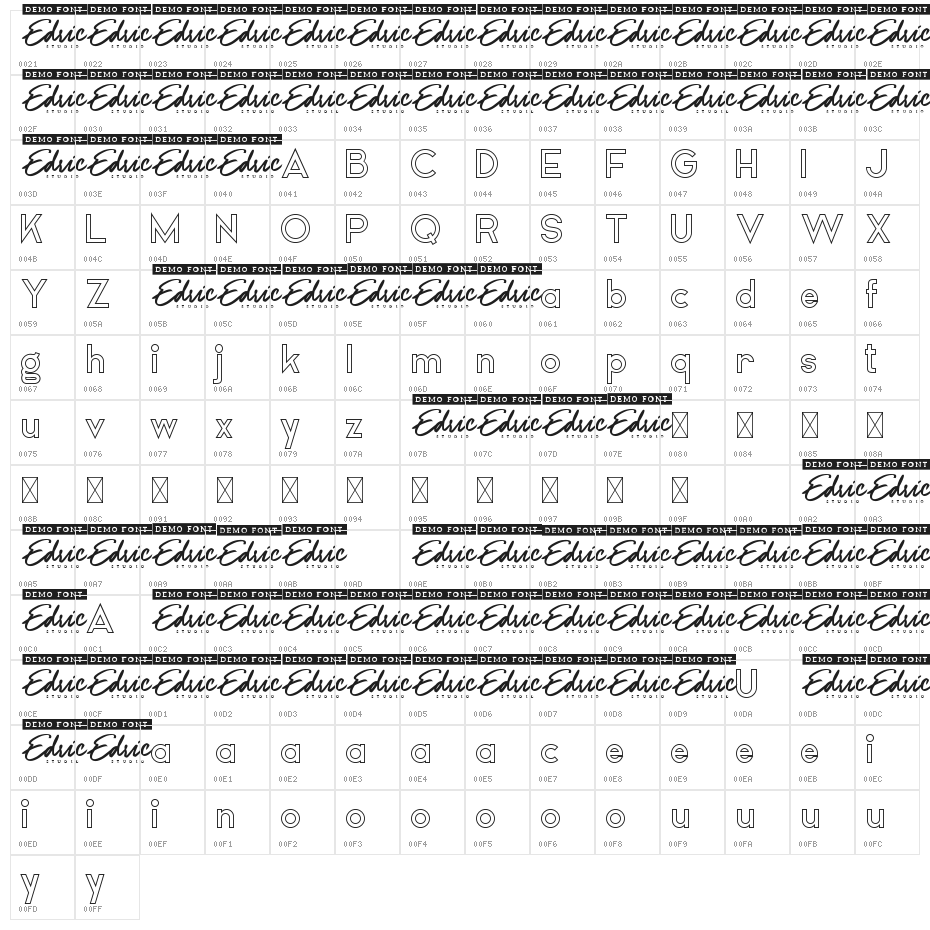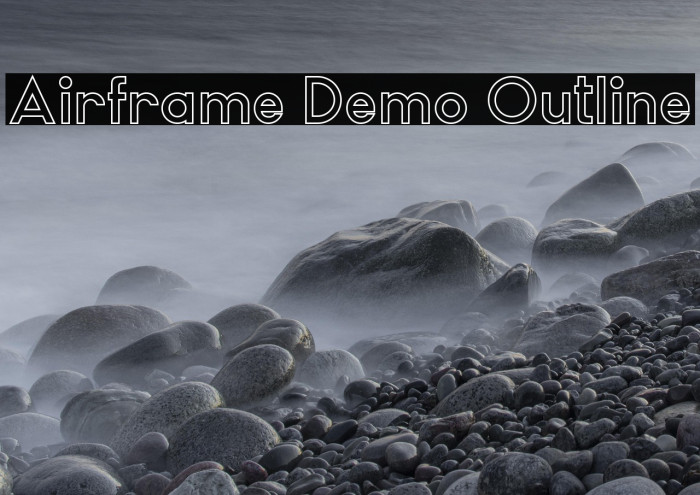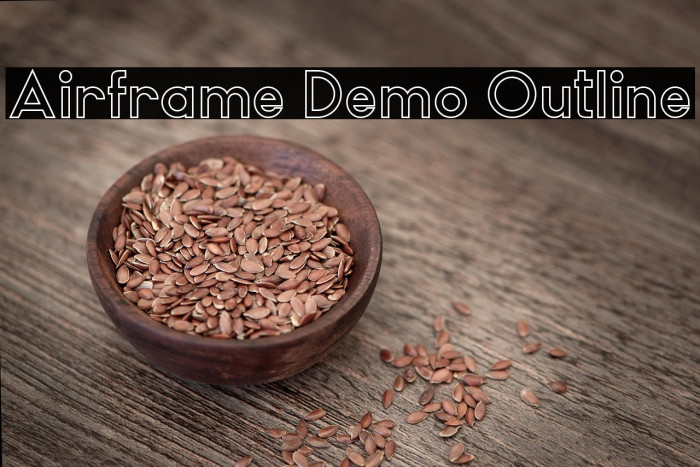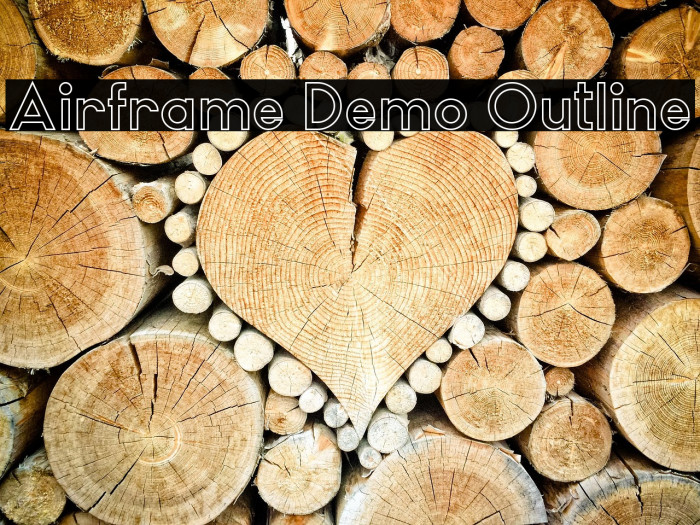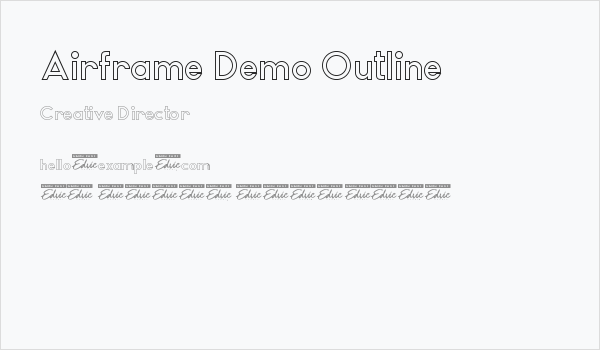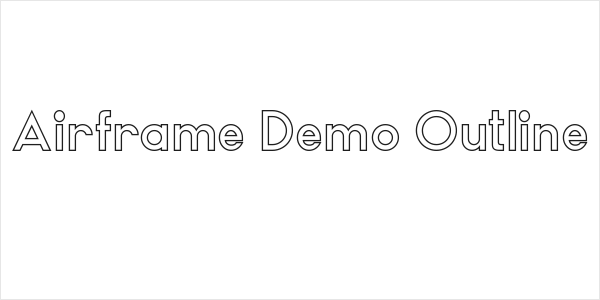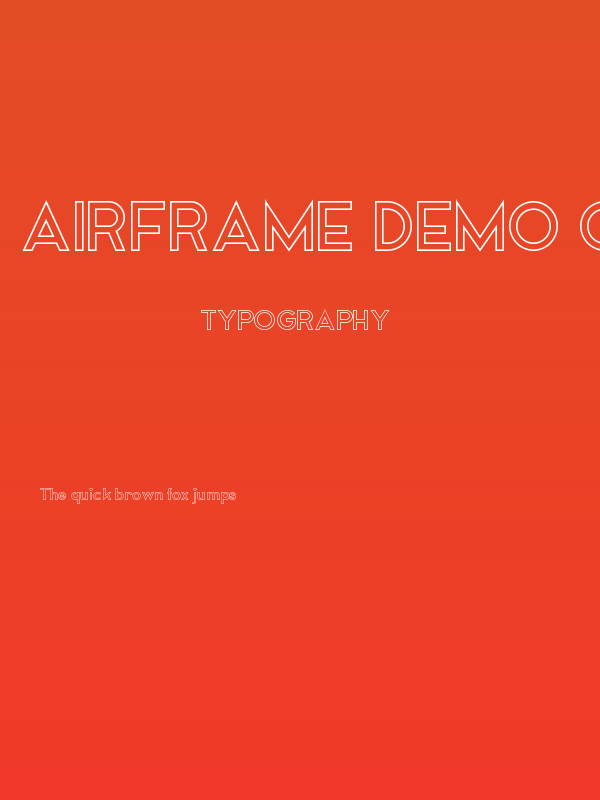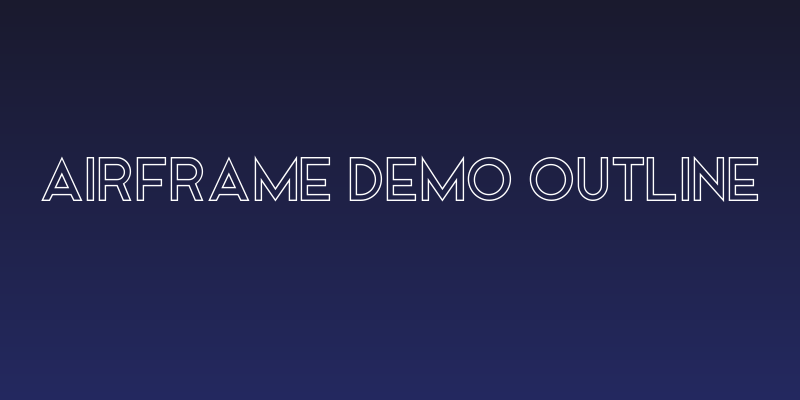
Airframe Demo Outline Font
Airframe Demo Outline Description
This font features a clean and modern outline style, characterized by its geometric and structured letterforms. The uppercase and lowercase letters maintain a consistent line weight, creating a harmonious and balanced appearance. The open and airy design allows for excellent readability while maintaining a distinctive and stylish look. The font's outline nature gives it a unique edge, making it suitable for various creative applications. Its simplicity and elegance make it versatile for both digital and print media, offering a contemporary aesthetic that can enhance any design project.
| Proposed Projects | Ideal for branding, headlines, posters, and digital media where a modern and stylish look is desired. |